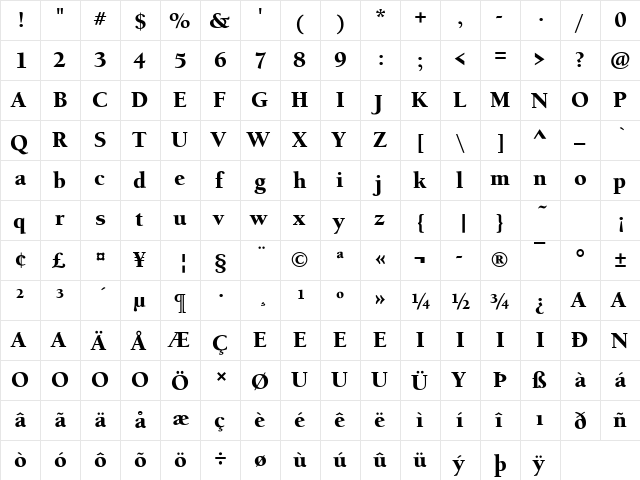
Berkeley Old Style ITC T Black Regular Font Preview
Berkeley Old Style ITC T Black Regular
Design Context for Berkeley Old Style ITC T Black Typeface
Berkeley Old Style ITC T Black offers clean, dependable letterforms without strong stylistic allegiance, making it a practical choice for designers who need flexibility.